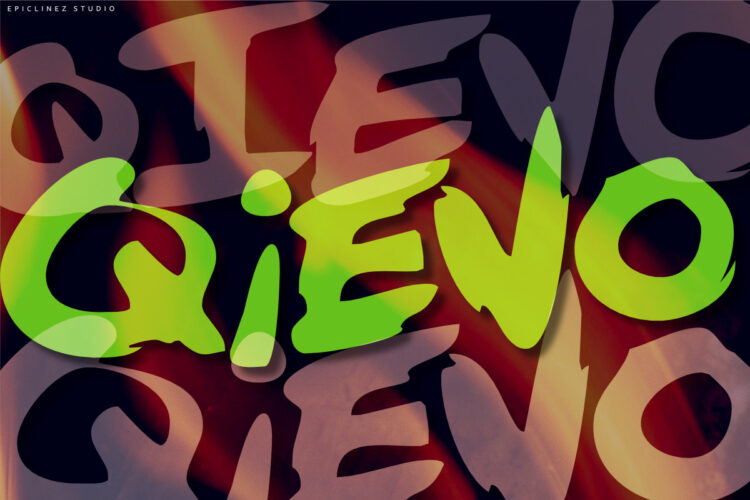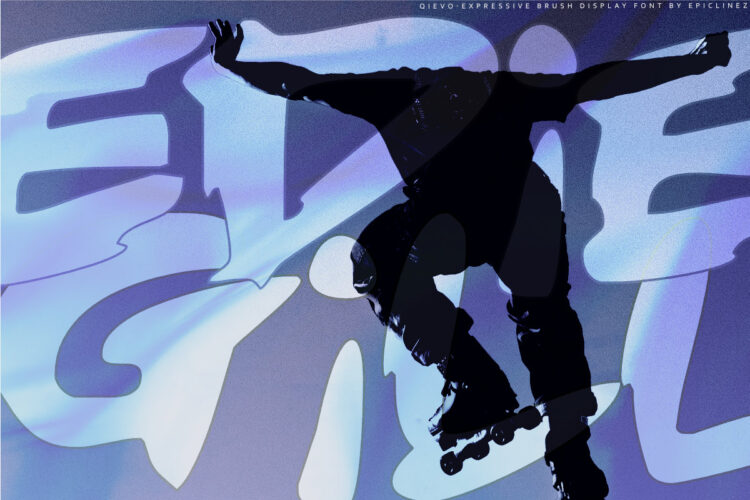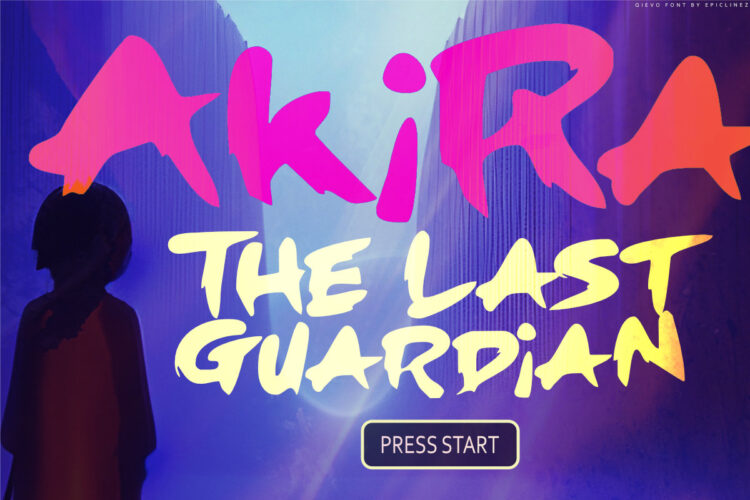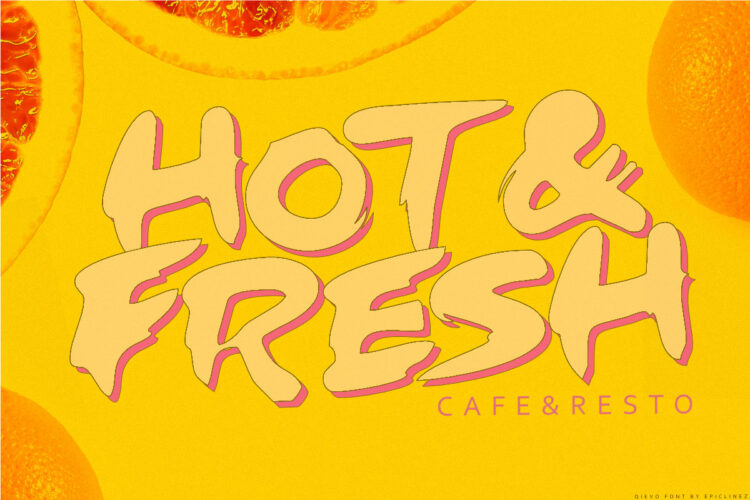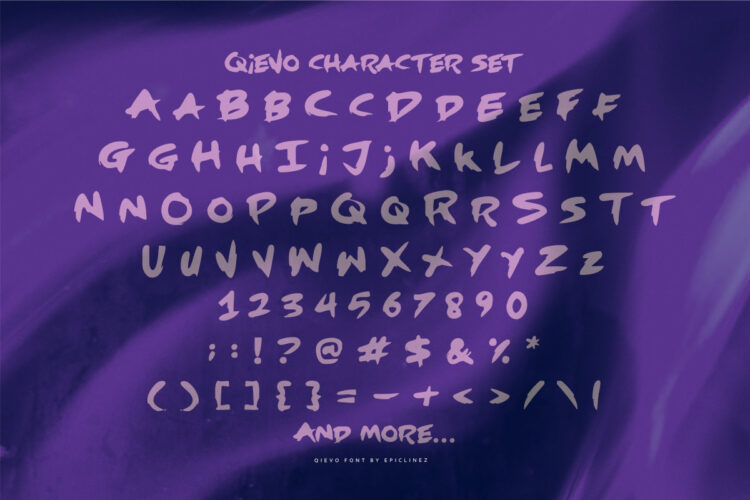
Qievo | Expressive Bold Brush Font
Unleash raw energy and artistic flair with Qievo, an ultra-expressive, bold brush font designed to make a statement. Crafted with high-fidelity, organic textures and striking, sweeping strokes, Qievo captures the spontaneous motion of a real ink brush. Every character is packed with personality, blending contemporary streetwear aesthetics with classic calligraphy.
Whether you are designing aggressive branding, standout packaging, cinematic posters, or high-impact merchandise, Qievo delivers a commanding visual presence that refuses to be ignored. Its robust weight ensures excellent legibility at large sizes, while its fluid, dynamic rhythm gives your text a living, breathing energy.
Key Features:
-
Authentic Texture: Detailed brush edges that retain a handcrafted, realistic ink look.
-
Expressive Dynamics: Varied stroke widths and organic slants for a fluid, natural flow.
-
High Impact: A heavy, bold weight perfect for headlines, logos, and display use.
-
Versatile Design Language: Effortlessly fits urban streetwear, athletic branding, modern editorial layouts, and energetic marketing campaigns.